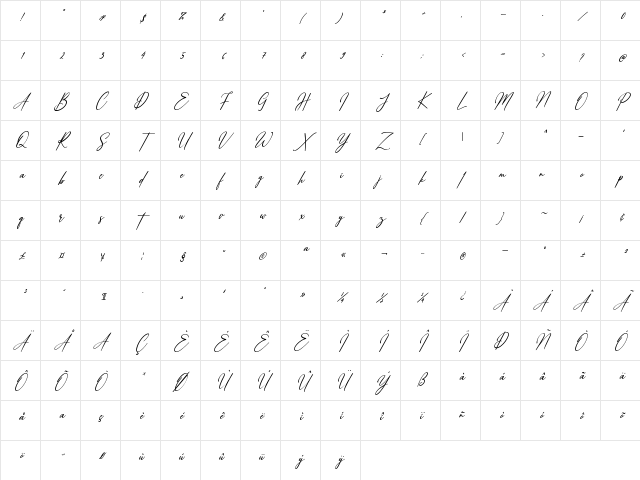
White Systemattic Italic Regular Free Font
White Systemattic Italic Regular
Foundry: KongFont
Designer: Typeface￿(KongFont).2020.
Design Context for White Systemattic Italic
White Systemattic Italic is a composed and adaptable typeface that performs quietly and consistently across a wide range of design contexts. The slanted form adds forward momentum and visual energy.
Pro Tip: Use White Systemattic Italic for emphasis, pull quotes, and subheadings where its slanted energy can add rhythm to the layout.